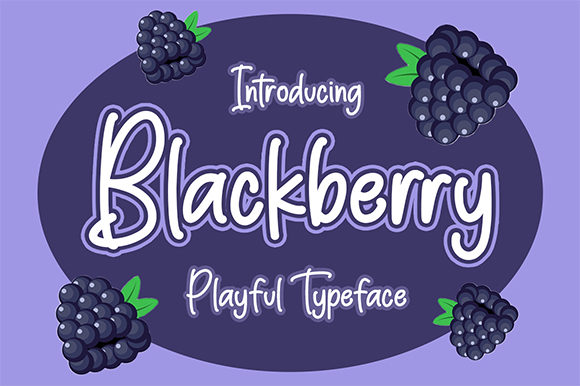
Blackberry Font
Introducing Blackberry Font, a delightful handwritten font that exudes charm and playfulness. Its casual yet elegant style adds a touch of whimsy and warmth to any design. With its flowing lines and beautiful swashes, Blackberry Font is perfect for creating captivating social media posts, eye-catching logos, heartwarming invitations, and heartfelt greeting cards.
This versatile font family offers a range of weights and styles, from delicate hairlines to bold and impactful strokes, providing endless creative possibilities. Whether you're expressing your creativity through digital art, designing enchanting wedding stationery, or crafting personalized gifts, Blackberry Font adapts effortlessly to your vision.
Embrace the artistry of Blackberry Font and transform your creative endeavors into masterpieces. Its friendly and approachable nature makes it ideal for personal projects, branding, and marketing materials, helping you connect with your audience on an emotional level.
So, dive into the enchanting world of Blackberry Font and let your creativity flourish. Let this charming font be your artistic partner, adding a spark of joy and individuality to every project you undertake.